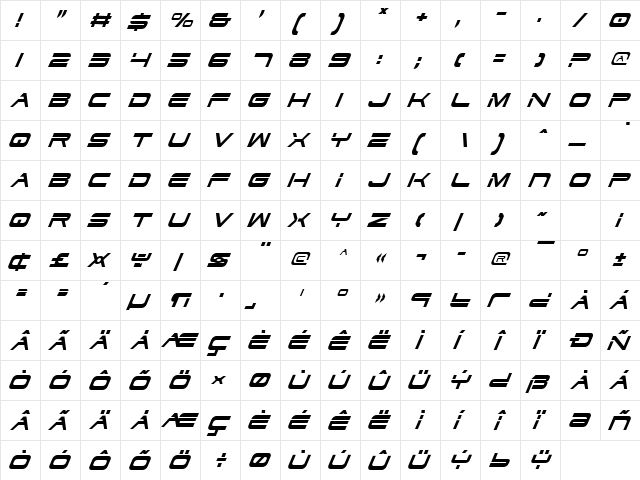
Dodger Condensed Italic Font Preview
Design Context for Dodger Condensed Italic Typeface
Dodger Condensed Italic is a composed and adaptable typeface that performs quietly and consistently across a wide range of design contexts. The dynamic lean of this cut emphasises speed and emphasis in any layout. Its narrow stance lets it pack a punch even in space-constrained designs.